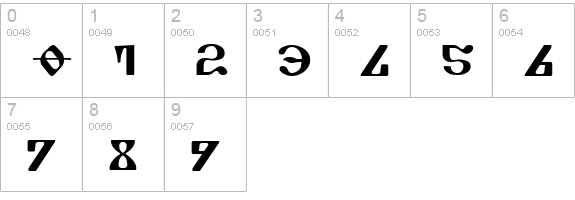
Piper Pie Expanded is a distinctive, extended-width variant in the Piper typeface family \xE2\x80\x94 well suited to design and typography projects.
Piper Pie Expanded font is a whimsical and playful typeface that will add a touch of fun to your design projects. With its charmingly quirky style and elongated letterforms, this font is perfect for creating eye-catching headlines, posters, and invitations. The unique design of Piper Pie Expanded will bring a sense of creativity and originality to any project. Best of all, Piper Pie Expanded font is available for free download at FontsMarket.com. So, you can easily add this delightful font to your collection without any cost. Don't miss out on the opportunity to enhance your designs with the charming and expressive Piper Pie Expanded font. Download it today and let your creativity soar!